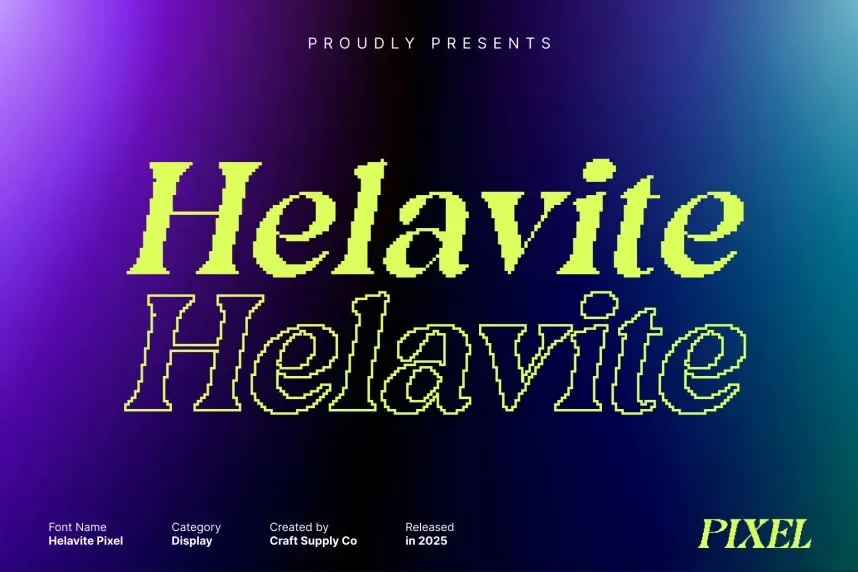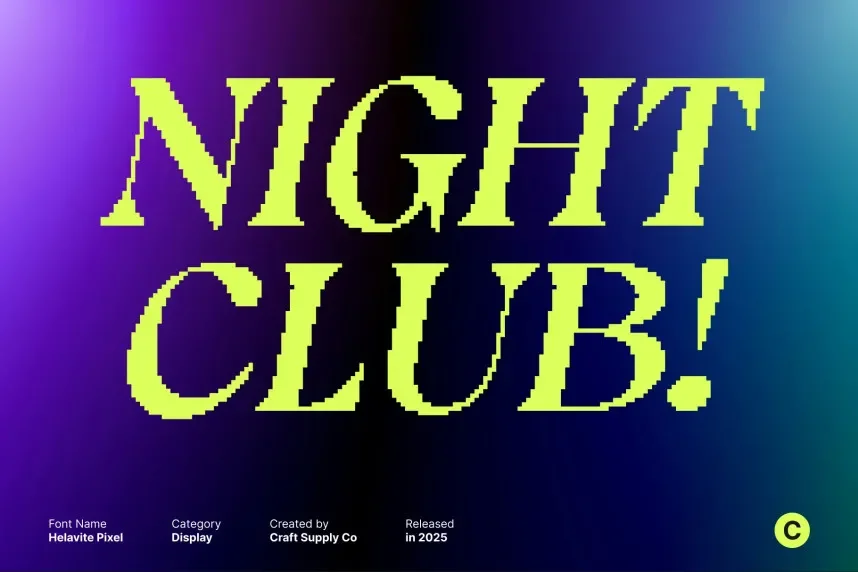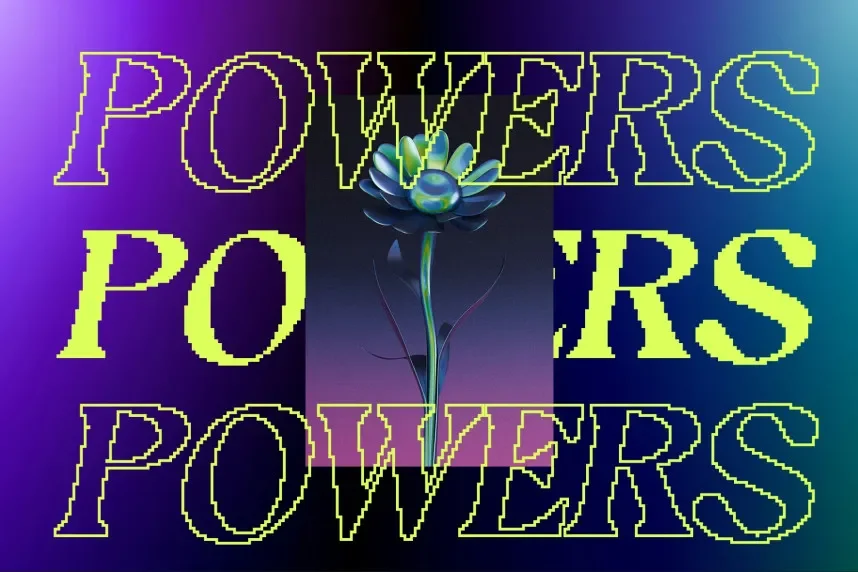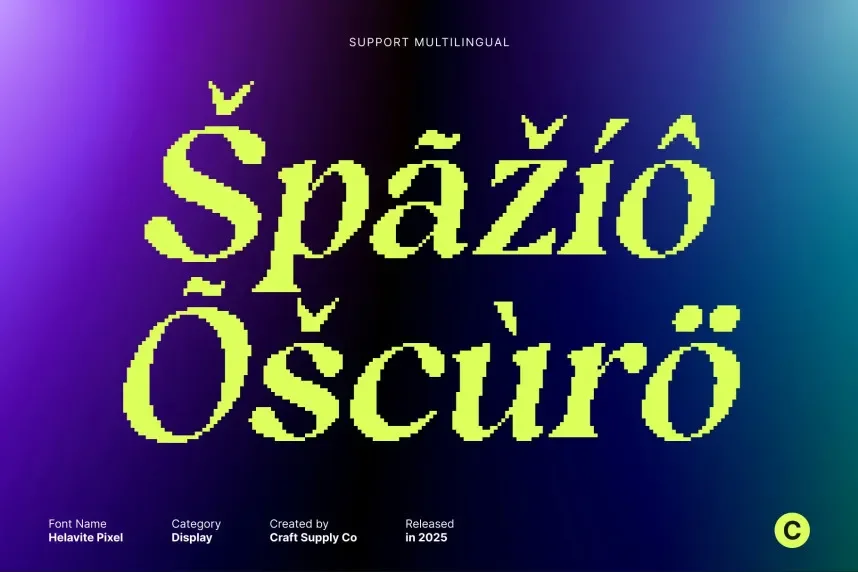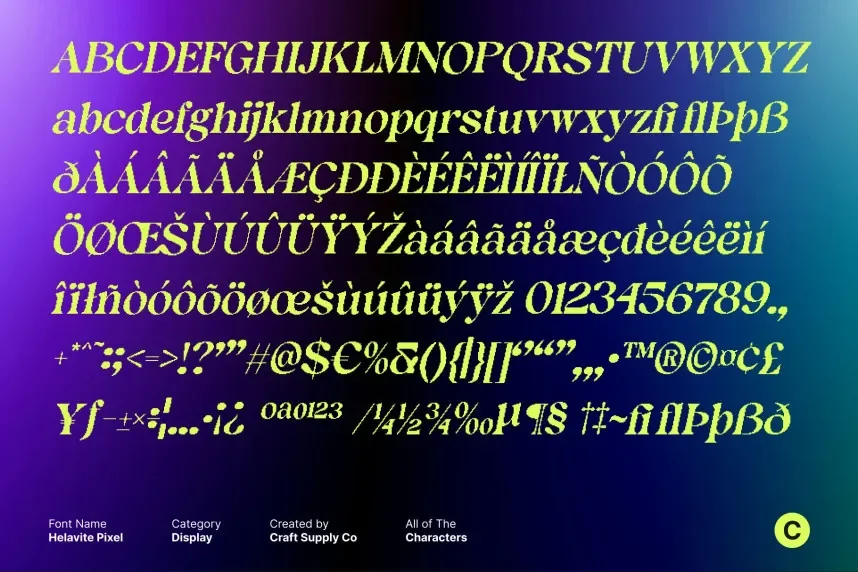
Helavite Pixel Font is a digital-inspired typeface designed with clear, pixelated edges and consistent stroke weights. Its retro aesthetic makes it perfect for tech-related projects such as app interfaces, website headers, and gaming branding.